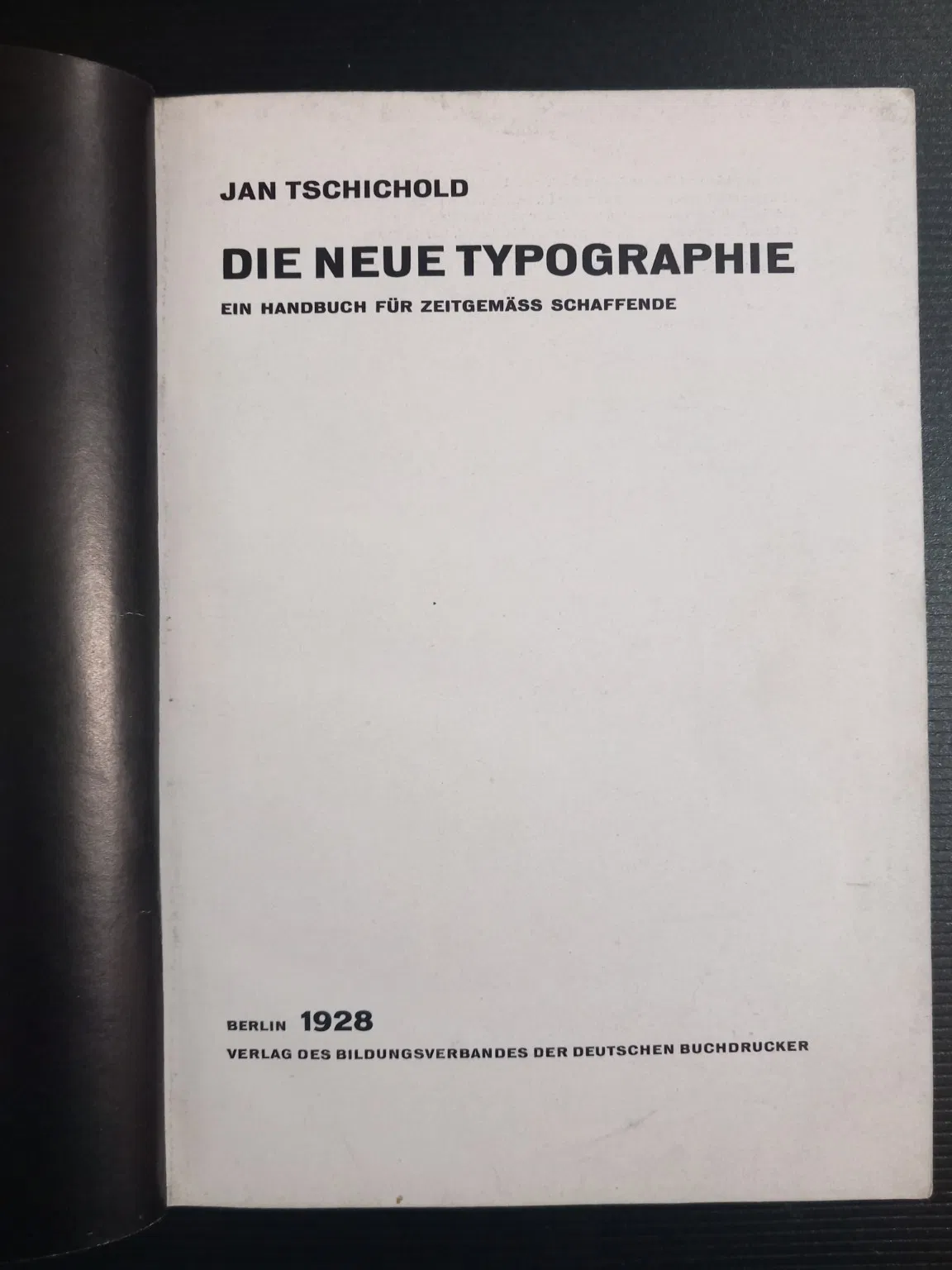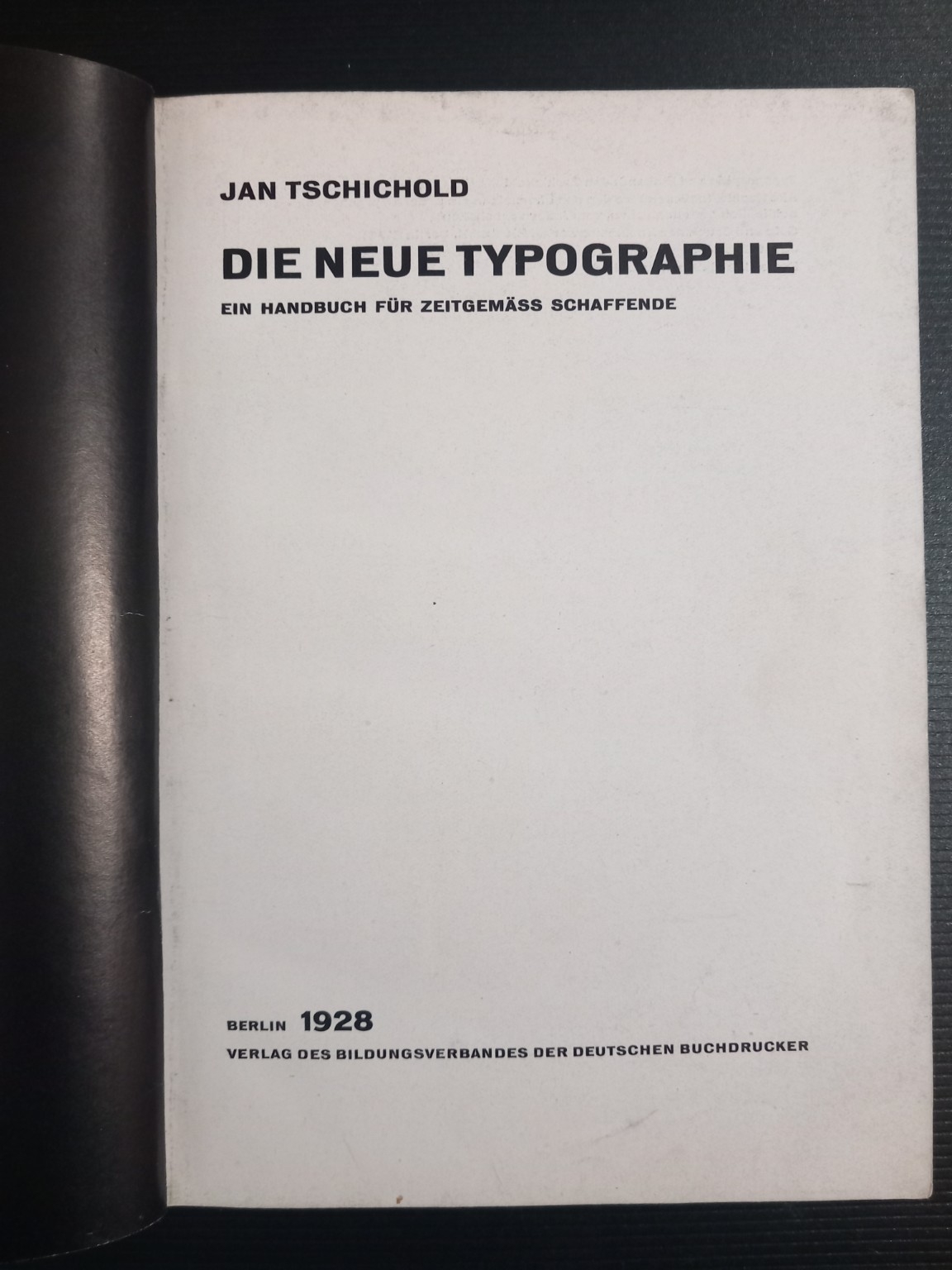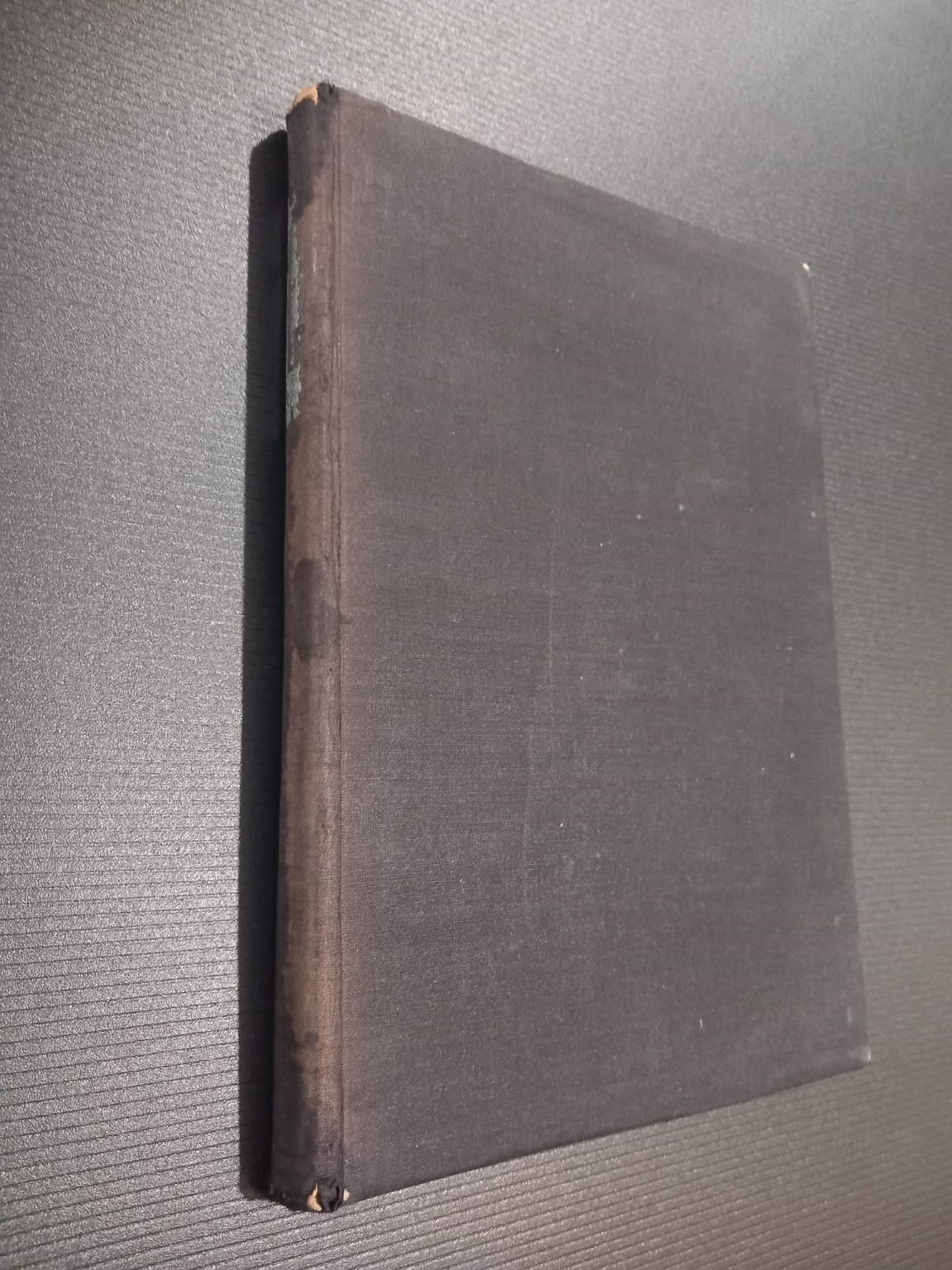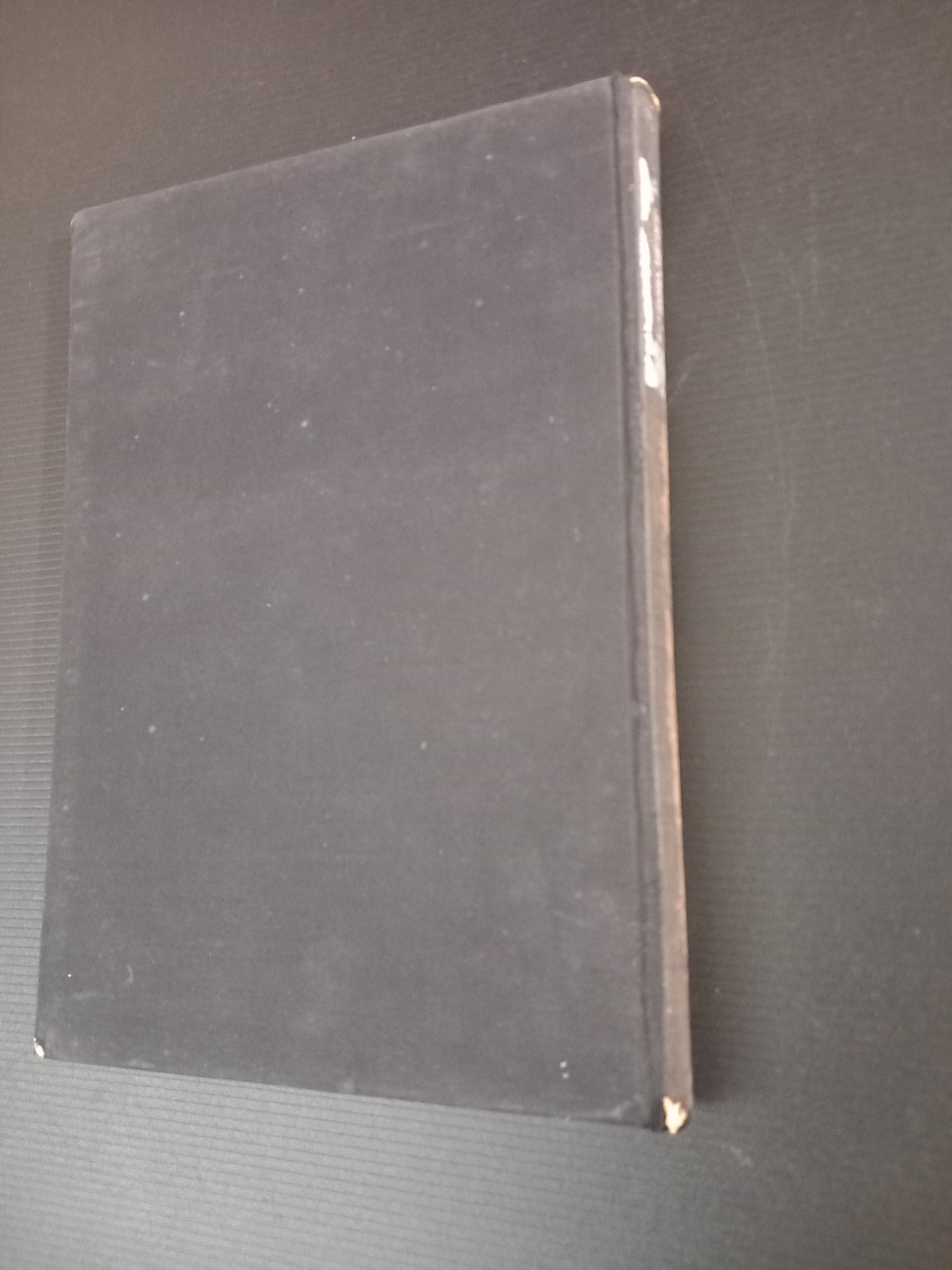
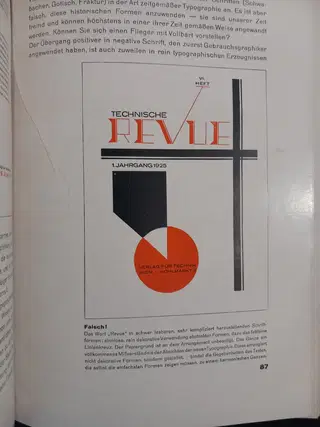
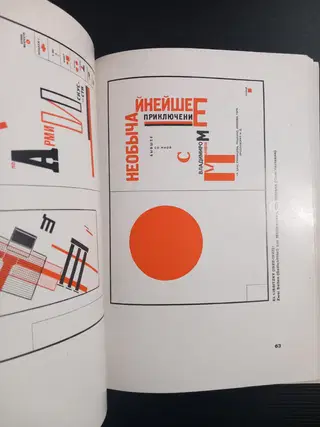
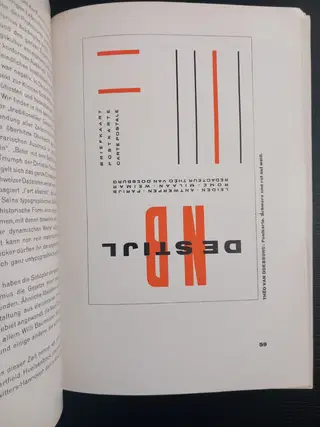
1928 Jan Tschichold – Die neue Typographie
Jan Tschichold – Die neue Typographie: Ein Handbuch für zeitgemäss Schaffende [The New Typography]. Berlin: Verlag des Bildungsverbandes der Deutschen Buchdrucker, 1928.8vo, 240[1] pp Original publisher’s black cloth, title printed in black to front (as issued, without dust jacket).
A landmark first edition of modernist typography, richly illustrated throughout with examples of avant-garde design, including work by El Lissitzky, Theo van Doesburg and Ladislav Sutnar. Tschichold’s influential manifesto codified the principles of the “New Typography,” advocating asymmetry, sans-serif type, and functional design, and became one of the foundational texts of 20th-century graphic design.
Condition: Moderate wear to binding, with rubbing at spine ends and corners; much of silver on spine worn away. Interior clean with strong binding. A solid, complete copy.